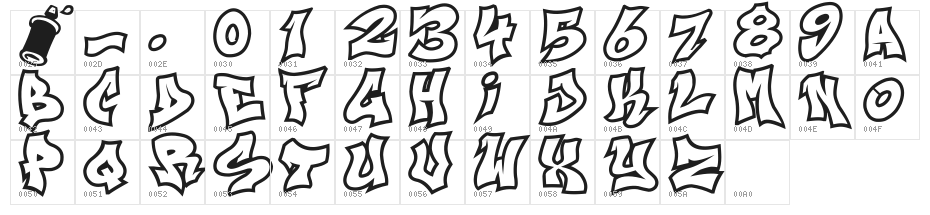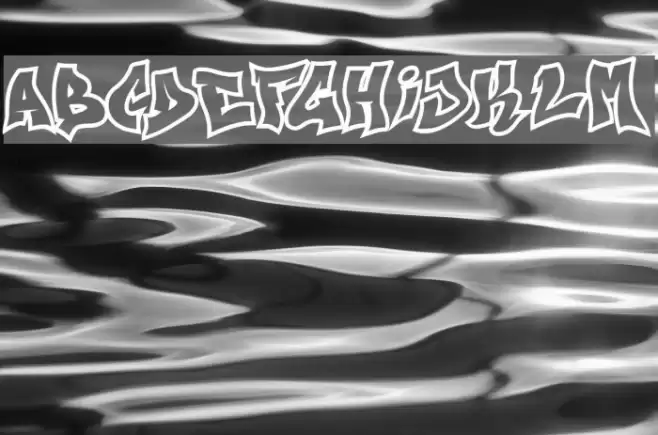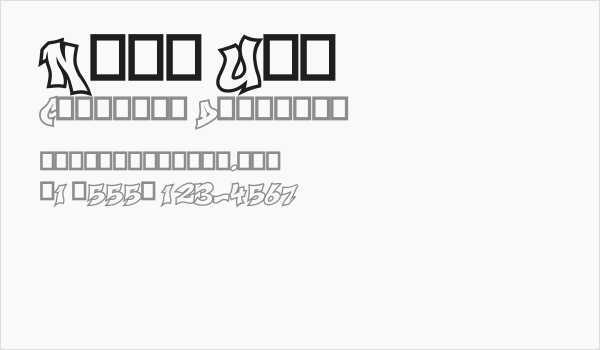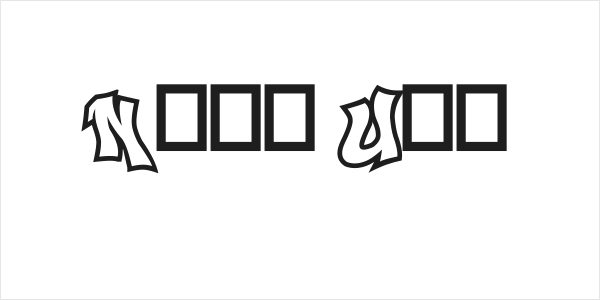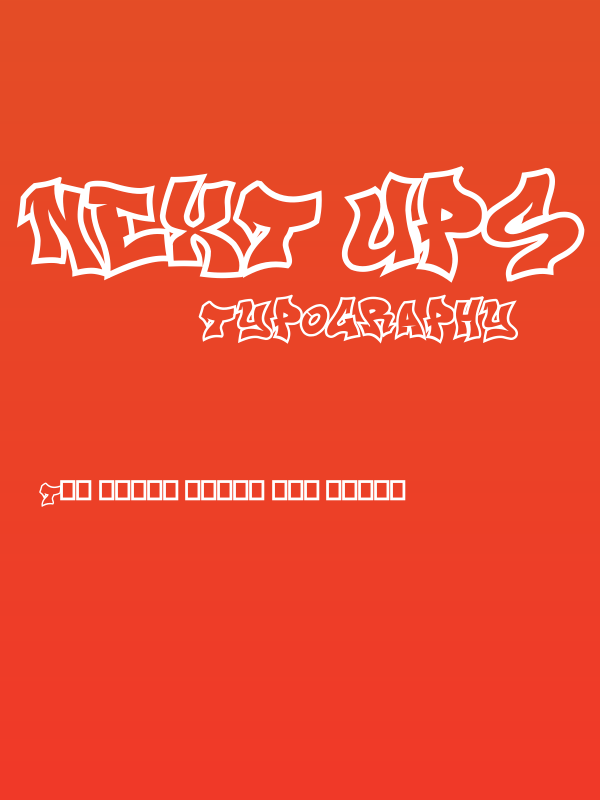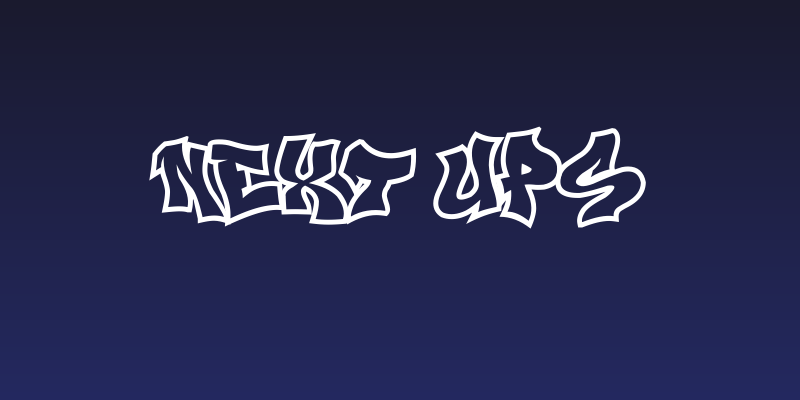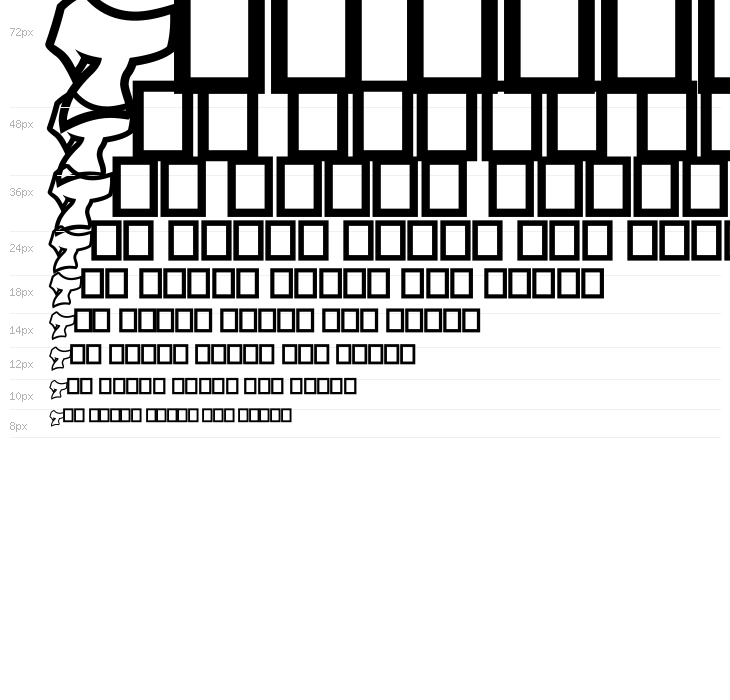
Next Ups Font
Next Ups Description
This font is a bold and dynamic graffiti-style typeface that captures the essence of street art with its edgy and angular letterforms. The uppercase and lowercase letters are designed with sharp, jagged edges and a sense of movement, giving them an energetic and rebellious feel. The numbers and special characters maintain this aesthetic, ensuring a cohesive look across all characters. The font's thick strokes and exaggerated shapes make it highly visible and impactful, ideal for making a statement. Its playful yet aggressive style is perfect for projects that require a bold and unconventional approach.
| Overall Style | Modern, Urban, Graffiti |
| Proposed Projects | Ideal for urban-themed designs, streetwear branding, music album covers, event posters, and any project seeking a bold, rebellious look. |